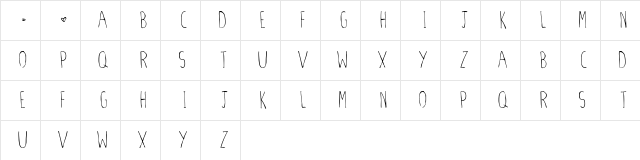
Complete Stiletto Skinny glyph index. Displaying only characters natively supported by Stiletto Skinny font.
Stiletto Skinny is a composed and adaptable typeface that performs quietly and consistently across a wide range of design contexts.